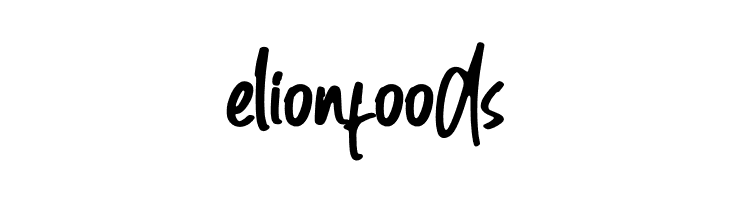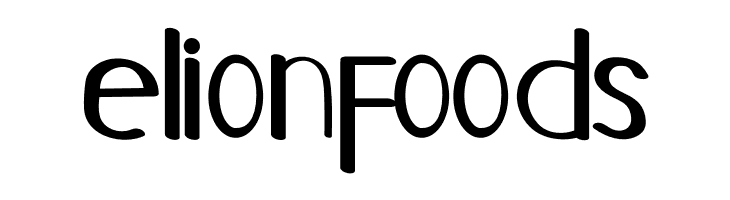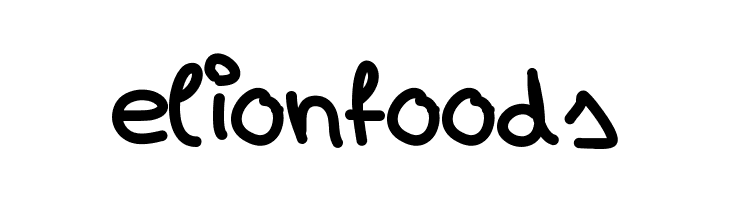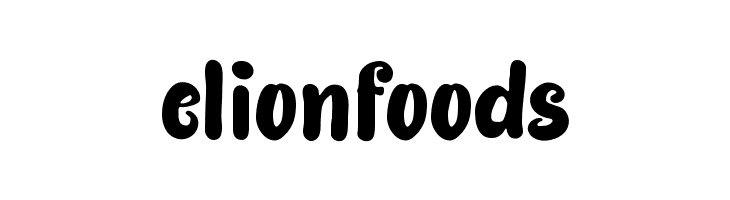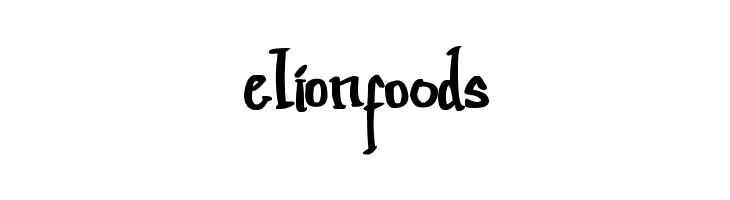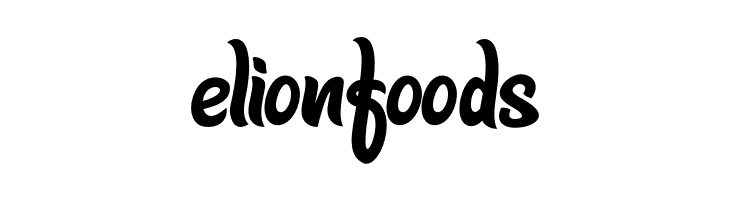
A bold, rounded, handwritten font with a dynamic and friendly style.
A playful, modern font with rounded, elongated letterforms and consistent stroke widths.
A playful, monster-themed font with bold, whimsical characters.
A playful, hand-drawn font with rounded, bubbly characters.
A bold, brush-style font with dynamic, hand-painted strokes.
A bold, jagged font with sharp edges and dynamic strokes, ideal for dramatic designs.
A bold, playful font with rounded characters and a whimsical style.
A bold, artistic font with a hand-drawn, whimsical style.
A bold, dynamic script font with flowing, cursive letters.
A bold, expressive handwritten font with dynamic strokes.